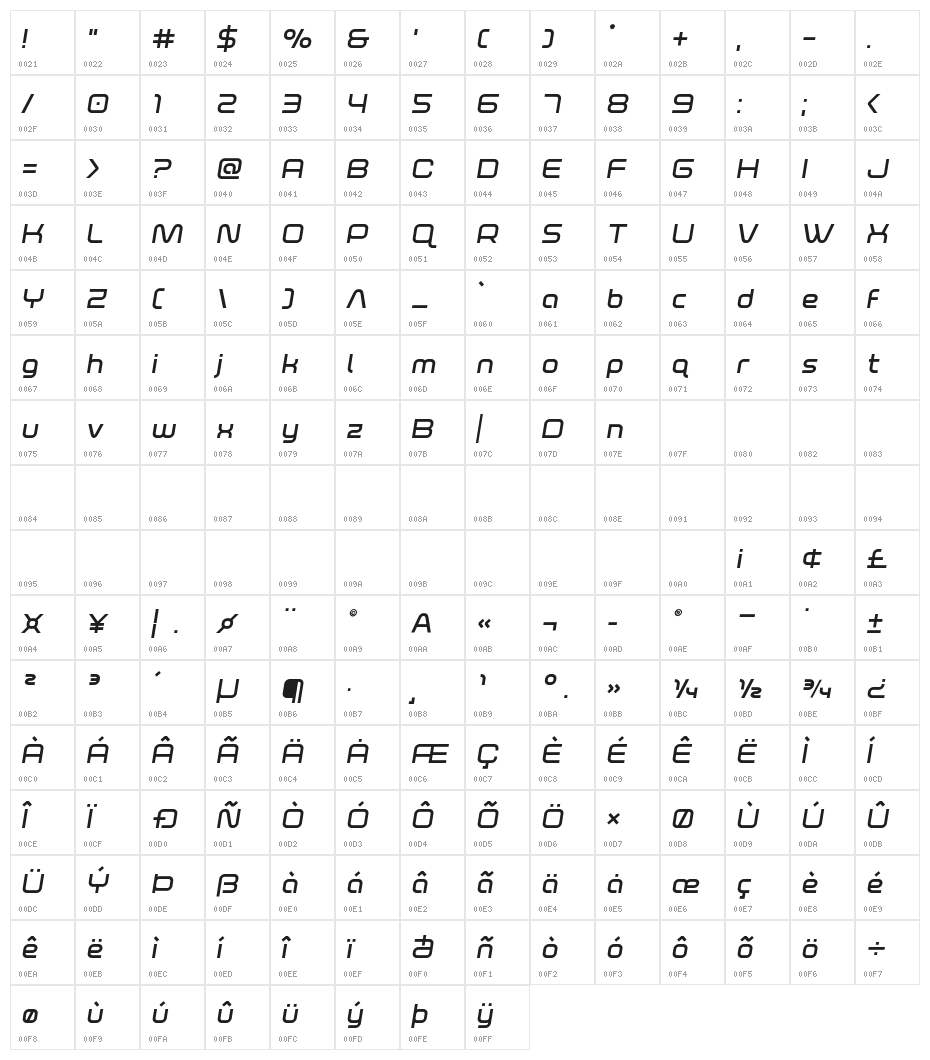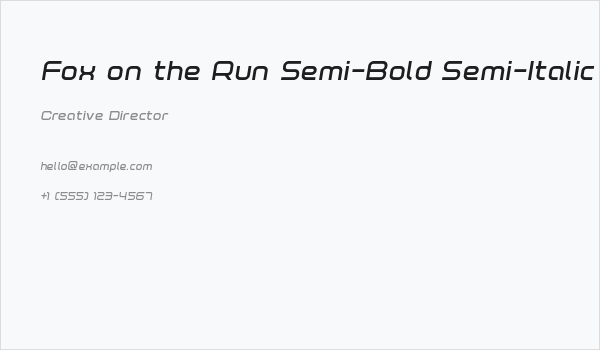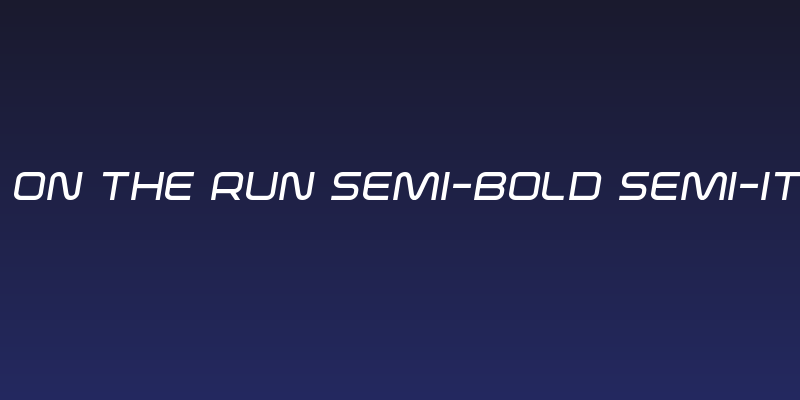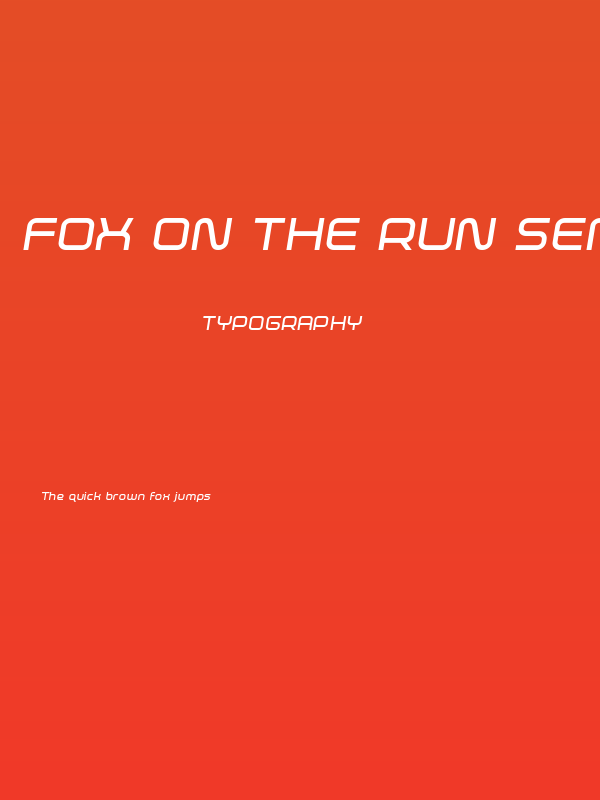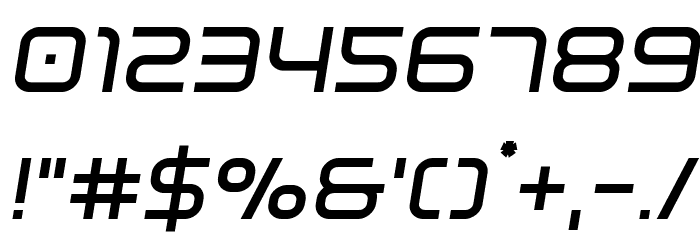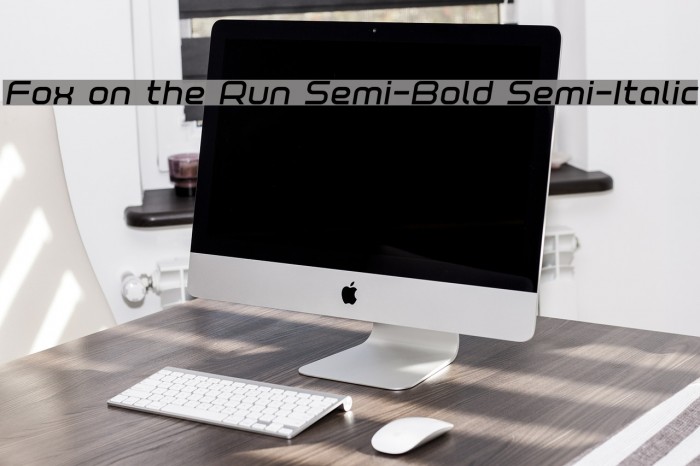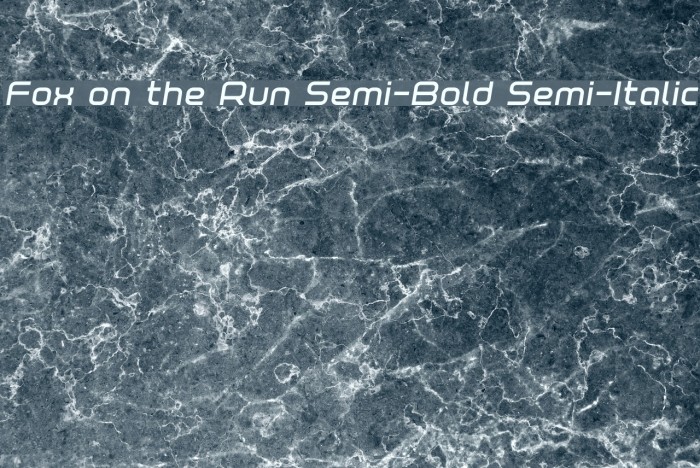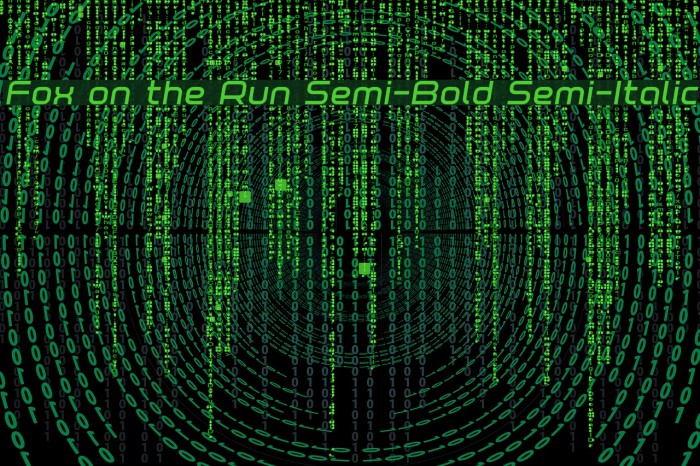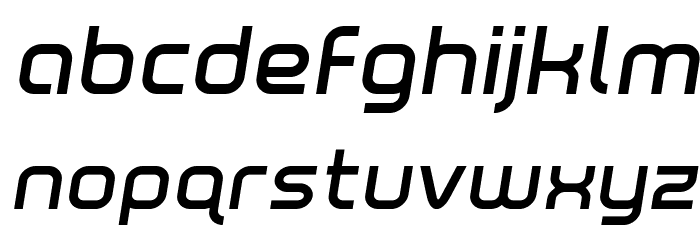
Fox on the Run Semi-Bold Semi-Italic Font
Fox on the Run Semi-Bold Semi-Italic Description
This font features a sleek and modern design with a semi-bold weight and semi-italic style. The characters are slightly slanted, giving a dynamic and forward-moving appearance. The strokes are consistent in thickness, providing a uniform look across all characters. The rounded edges and smooth curves contribute to its contemporary feel, making it suitable for a variety of digital and print applications. The numerals and special characters maintain the same stylistic approach, ensuring coherence throughout any text. Its clean lines and balanced proportions make it highly legible, even at smaller sizes.
| Use Case | Headlines, Logos, Digital Interfaces |
| Proposed Projects | Ideal for tech branding, modern advertising, digital interfaces, and sleek product packaging. |